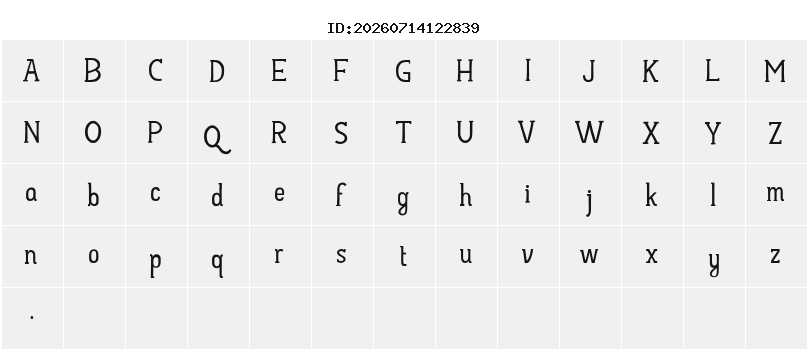
Hayyu Kaget Preview
• Font Name: Hayyu Kaget
• Full Font Name: Hayyu Kaget Normal
About Hayyu Kaget.ttf
Hayyu Kaget.ttf is a modern, elegant sans-serif font designed for ultimate readability and visual harmony. Perfect for branding, headlines, web design, and print materials.